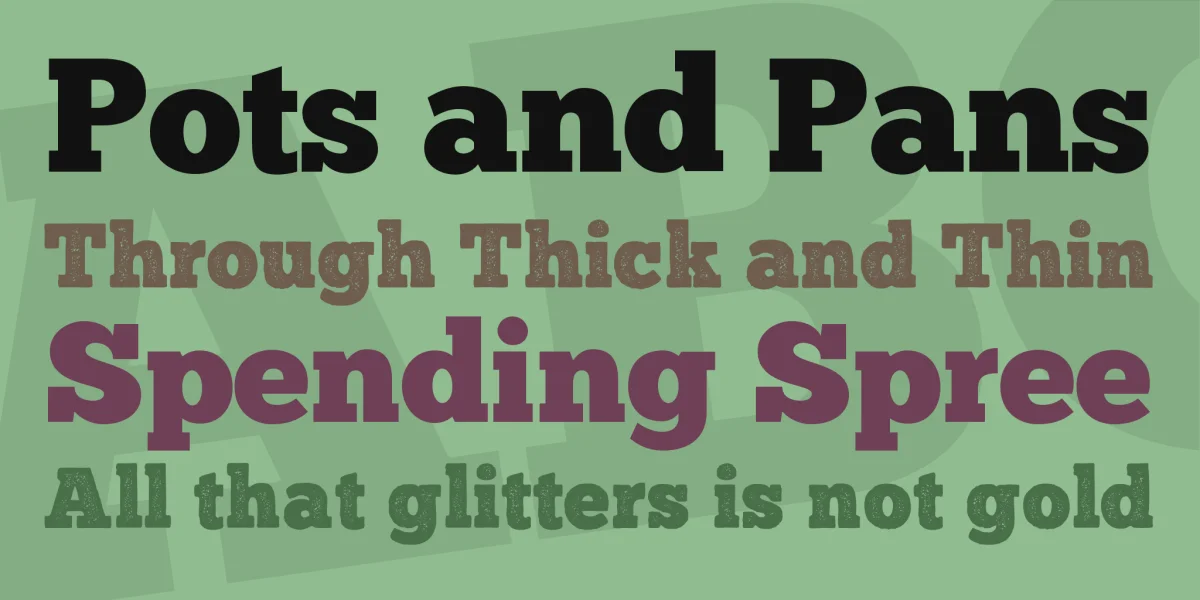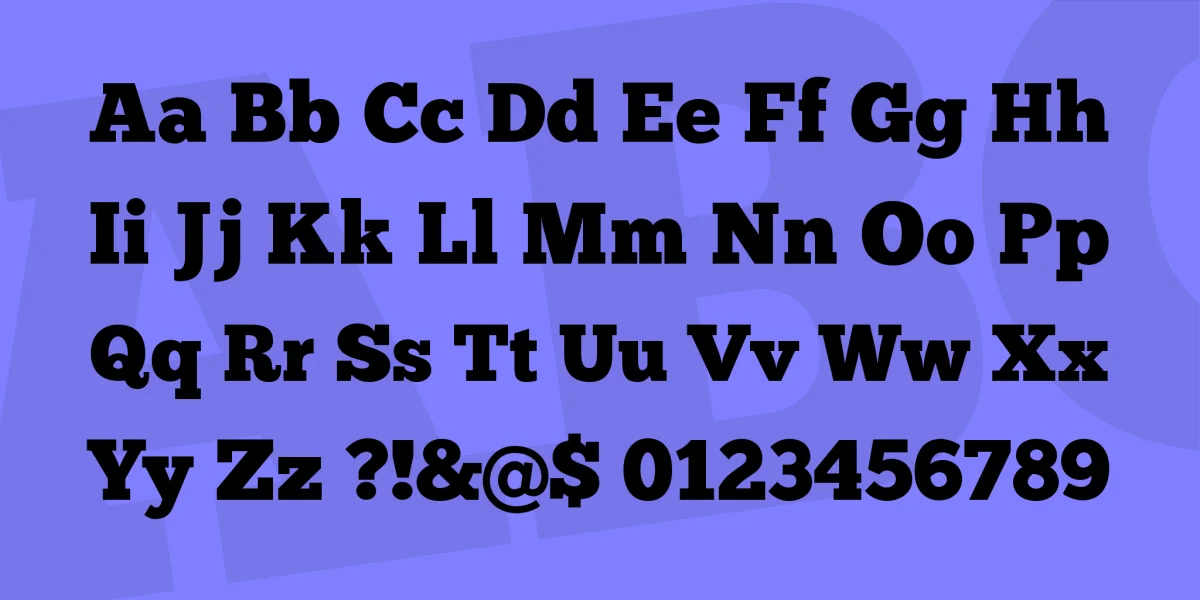
Chunk is an ultra-bold slab serif typeface that is reminiscent of old American Western woodcuts, broadsides, and newspaper headlines. Used mainly for display, the fat block lettering is unreserved yet refined for contemporary use.
In 2014 an a new textured style was created by Tyler Finck called Chunk Five Print. It contains the same glyphs as the original.